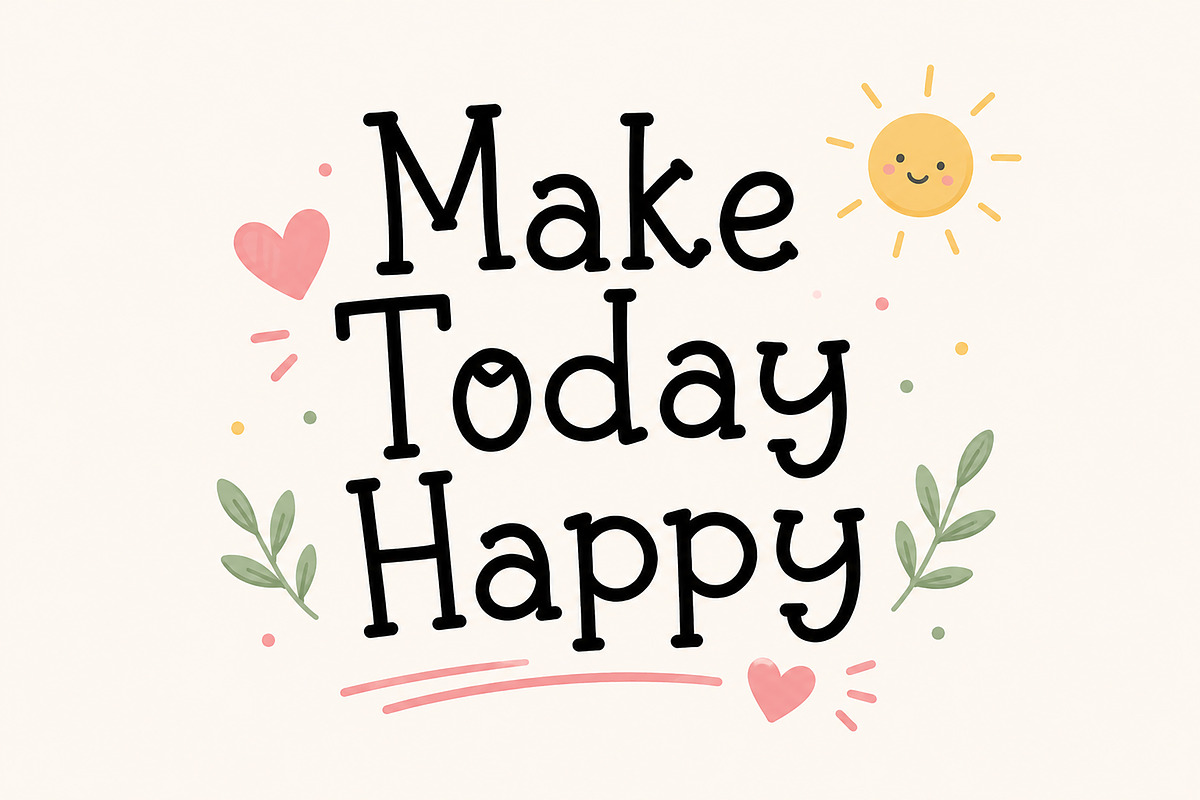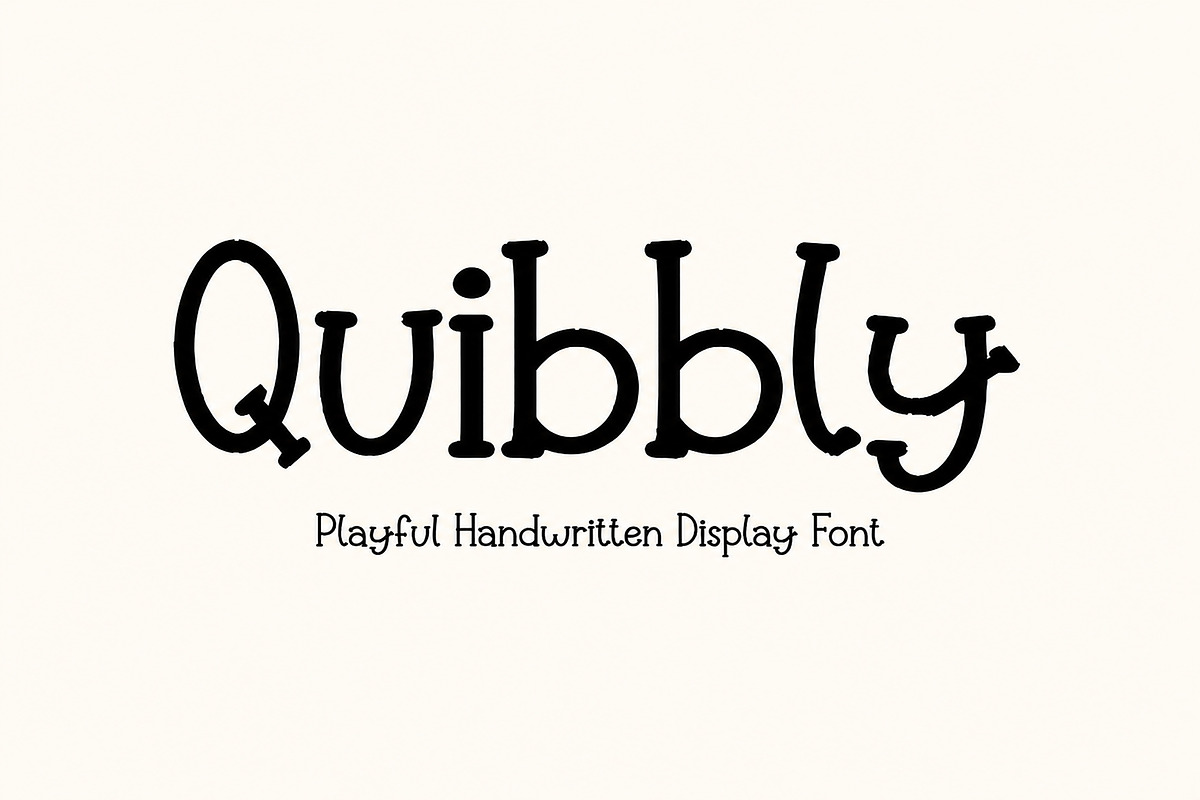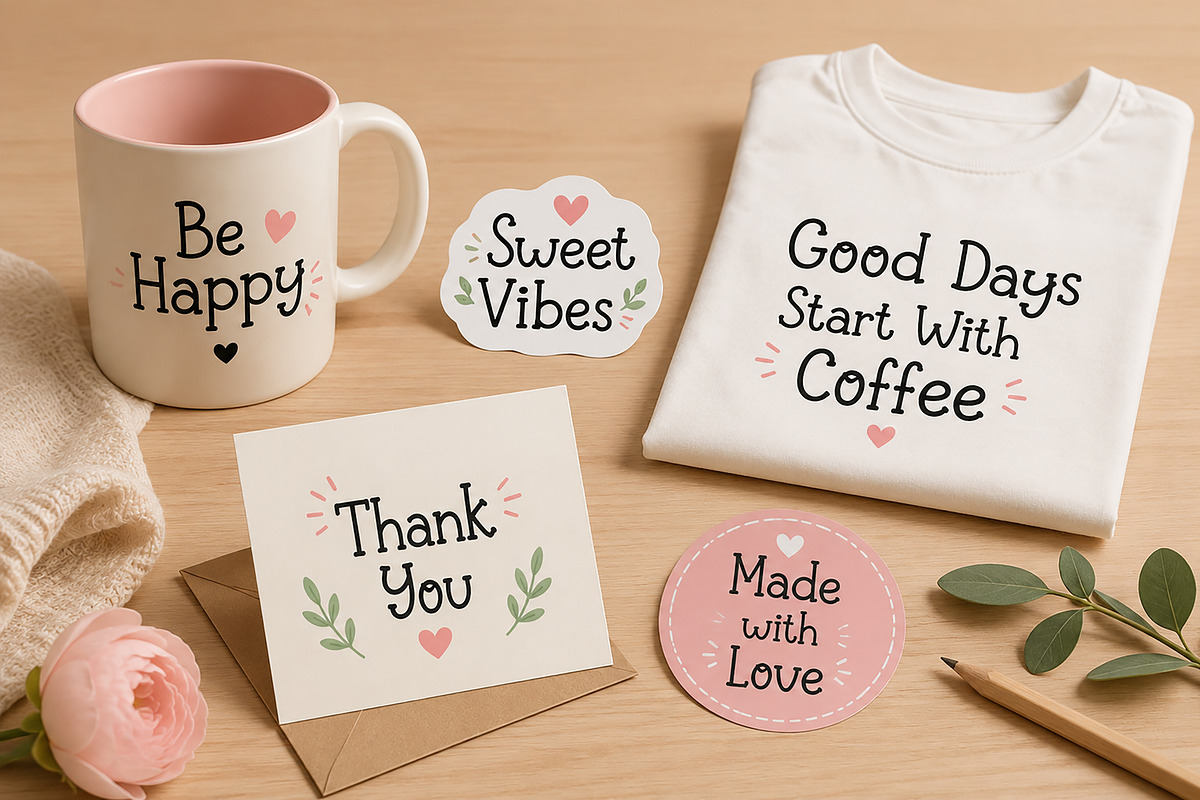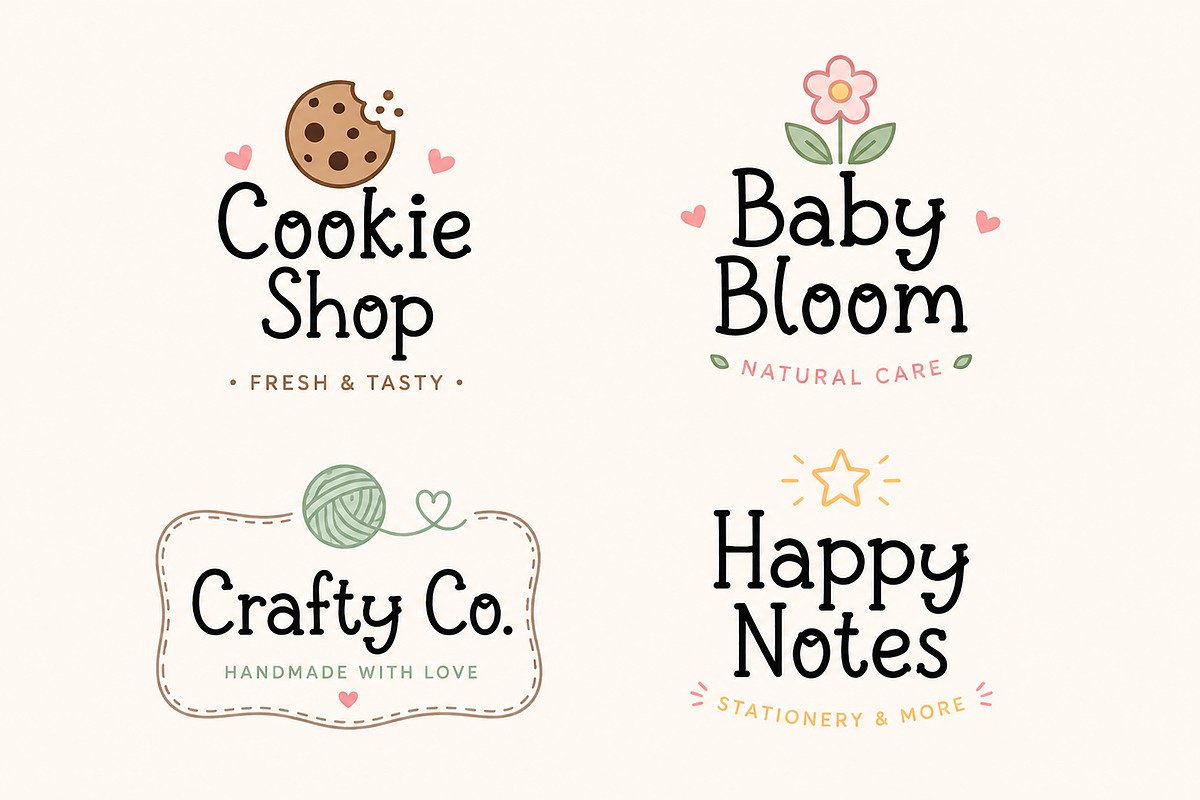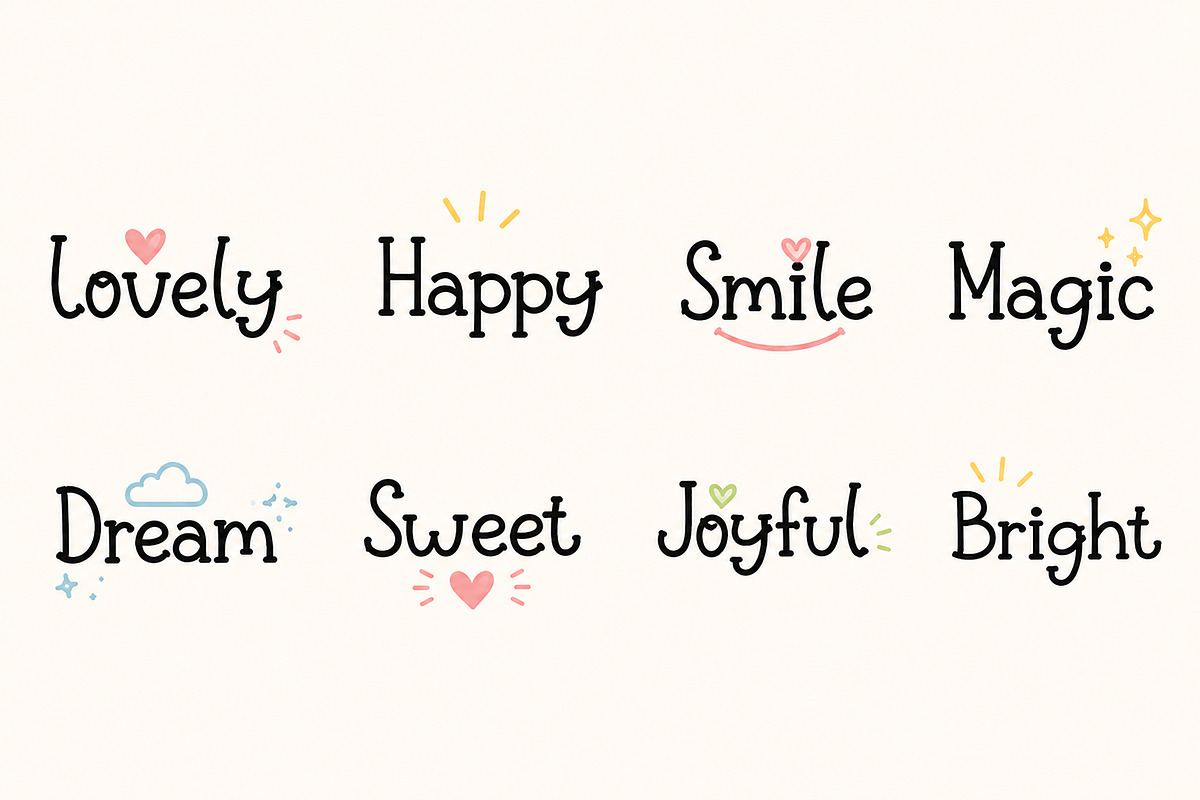
Quibbly – Playful Handwritten Font
Quibbly – Playful Handwritten Display Font
Bring joy and personality to your creative projects with Quibbly, a playful handwritten display font designed to make every design feel warm, cheerful, and full of charm. Its rounded letterforms, whimsical curves, and friendly appearance make it perfect for branding, packaging, social media, children's designs, and craft projects.
Whether you're creating a cute logo, a greeting card, a sticker, or eye-catching product packaging, Quibbly adds a fun handmade touch that instantly stands out.
Brand Identity
Food & Bakery Branding
Coffee Shop & Café Logos
Children's Products
Greeting Cards
Stickers
T-shirt Designs
Instagram Posts
Posters & Quotes
Labels & Tags
Handmade Business Branding
Cricut & Silhouette Projects
DIY Crafts
Invitations
Scrapbooking
Gift Cards
Printable Designs